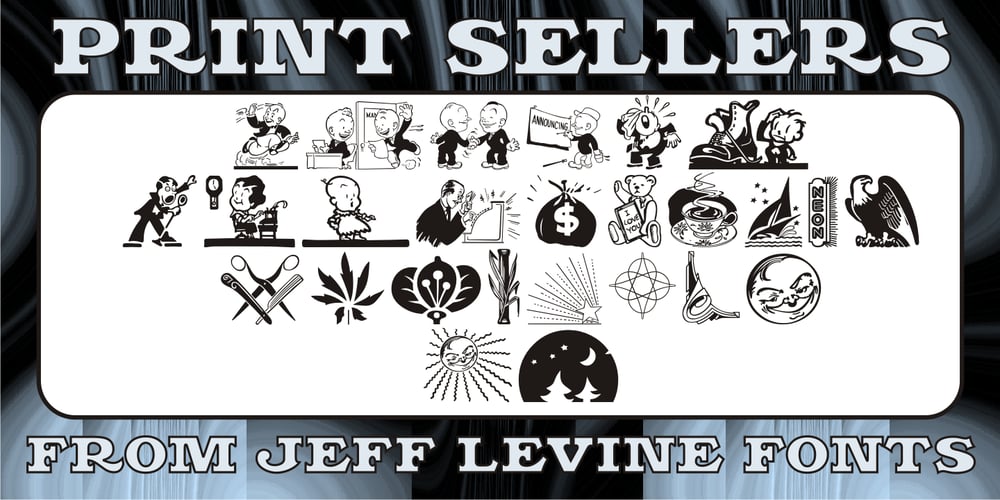
Print Sellers JNL
Print Sellers JNL font
Print Sellers JNL Font Family was designed by Jeff Levine and published by Jeff Levine. Print Sellers JNL contains 1 styles and family package options. Another batch of vintage letterpress cartoons, cuts, dingbats and embellishments is offered in Print Sellers JNL.